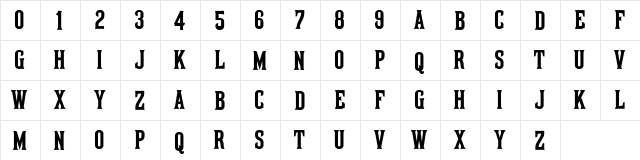
MLB Reds 2007 Regular
Design Context for MLB Reds 2007 Typeface
MLB Reds 2007 is a composed and adaptable typeface that performs quietly and consistently across a wide range of design contexts.